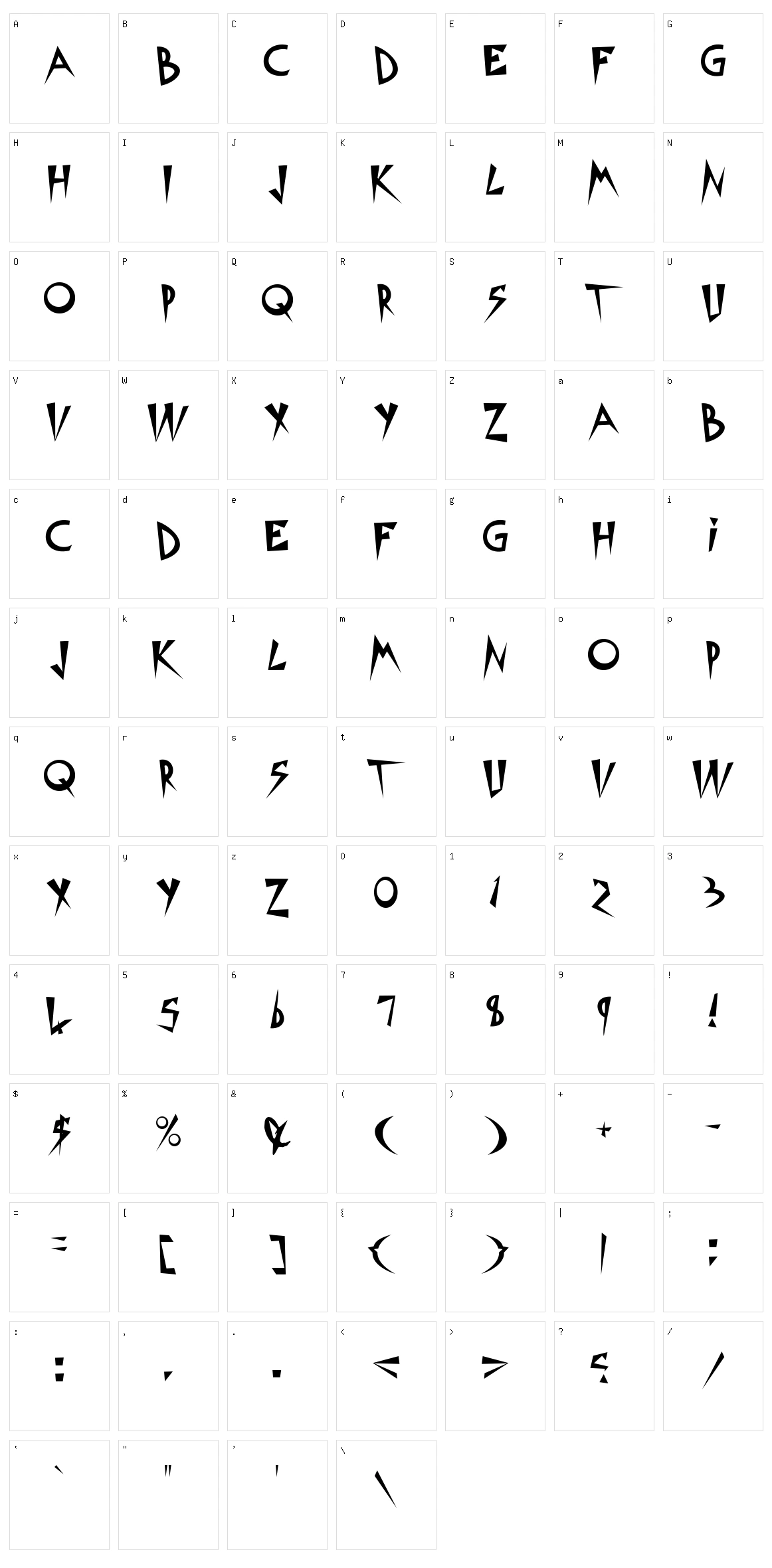
x METROPOLIS x
x from capolavoro of FRITZ LANG x x
Font name: METROPOLIS - Latin Decorative font (versione 1.0)
Type designer: P. A. Vannucci (Font Lab Studio 5.0)
METROPOLIS font: directly from the capolavoro of FRITZ LANG, the original font of the title, from
the second musical version of Giorgio Moroder.
METROPOLIS font: direttamente dal film capolavoro di FRITZ LANG, l'originale font della titolazione, tratta
anche dalla riedizione musicale eseguita da GIORGIO MORODER.